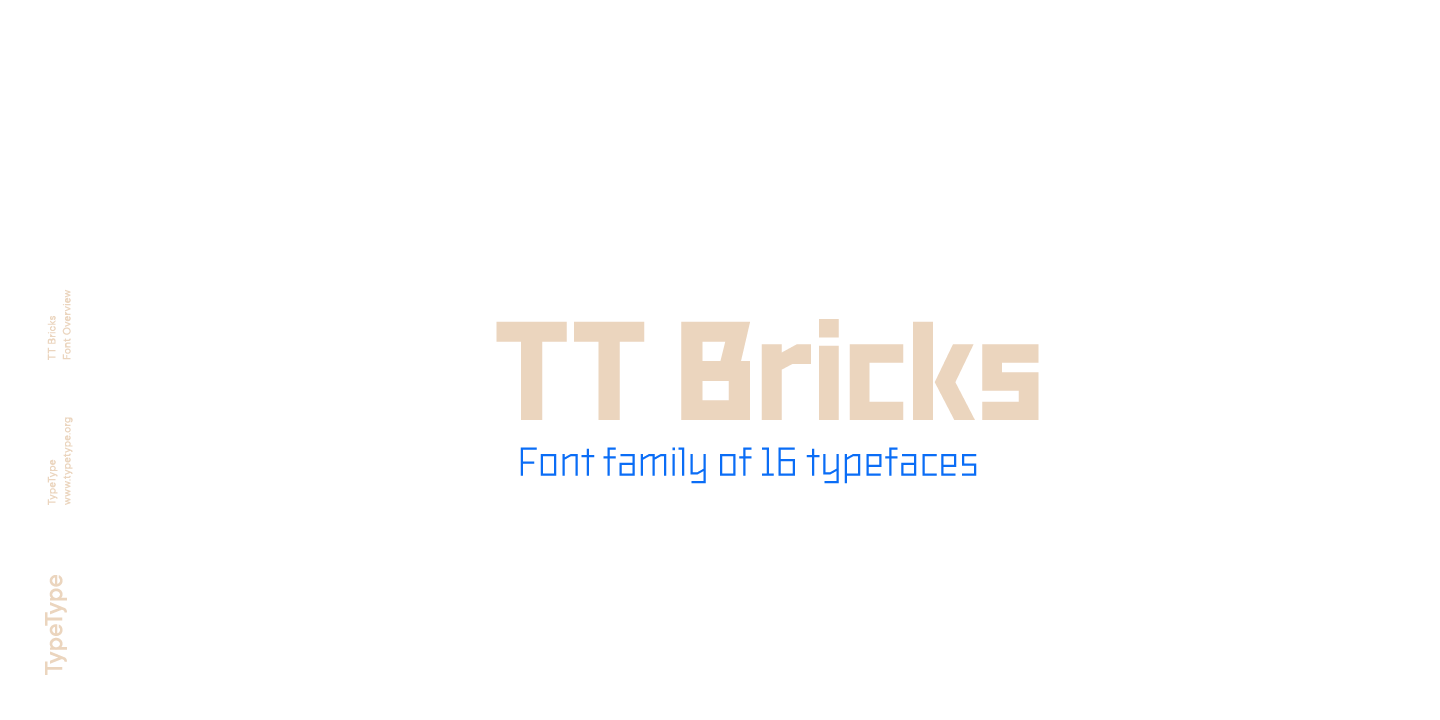
The TT Bricks Font is excellent for solid construction-themed design projects including architectural firm branding, construction company identities, building material marketing, real estate development presentations, urban planning documents, infrastructure project materials, contractor service advertisements, and industrial construction signage. This robust typeface brings structural strength and architectural reliability to any design project requiring durable, dependable typography with construction industry authenticity.
What makes TT Bricks Font so exciting is its powerful embodiment of construction industry solidity with brick-inspired letterforms that capture the essence of structural integrity and building craftsmanship. The letters feature strong, modular characteristics with construction-grade durability that creates an immediate sense of reliability and architectural strength. This distinctive construction character makes it perfect for brands and projects that want to communicate structural expertise, building quality, and the dependable appeal of professional construction and architectural services.
The TT Bricks Font family typically includes multiple weights from regular to bold, complete with construction-optimized variations and comprehensive character sets. Many versions feature architectural symbols, construction glyphs, and building industry elements that enhance its authenticity for construction and real estate applications.
Whether you're designing for construction companies, architectural firms, or building industry services, TT Bricks Font Free Download provides the perfect solution for projects that need to convey structural reliability and construction expertise. This font transforms standard industry communications into solid designs that immediately communicate building excellence, structural integrity, and the dependable strength of professional construction services to clients seeking reliable building and architectural solutions.